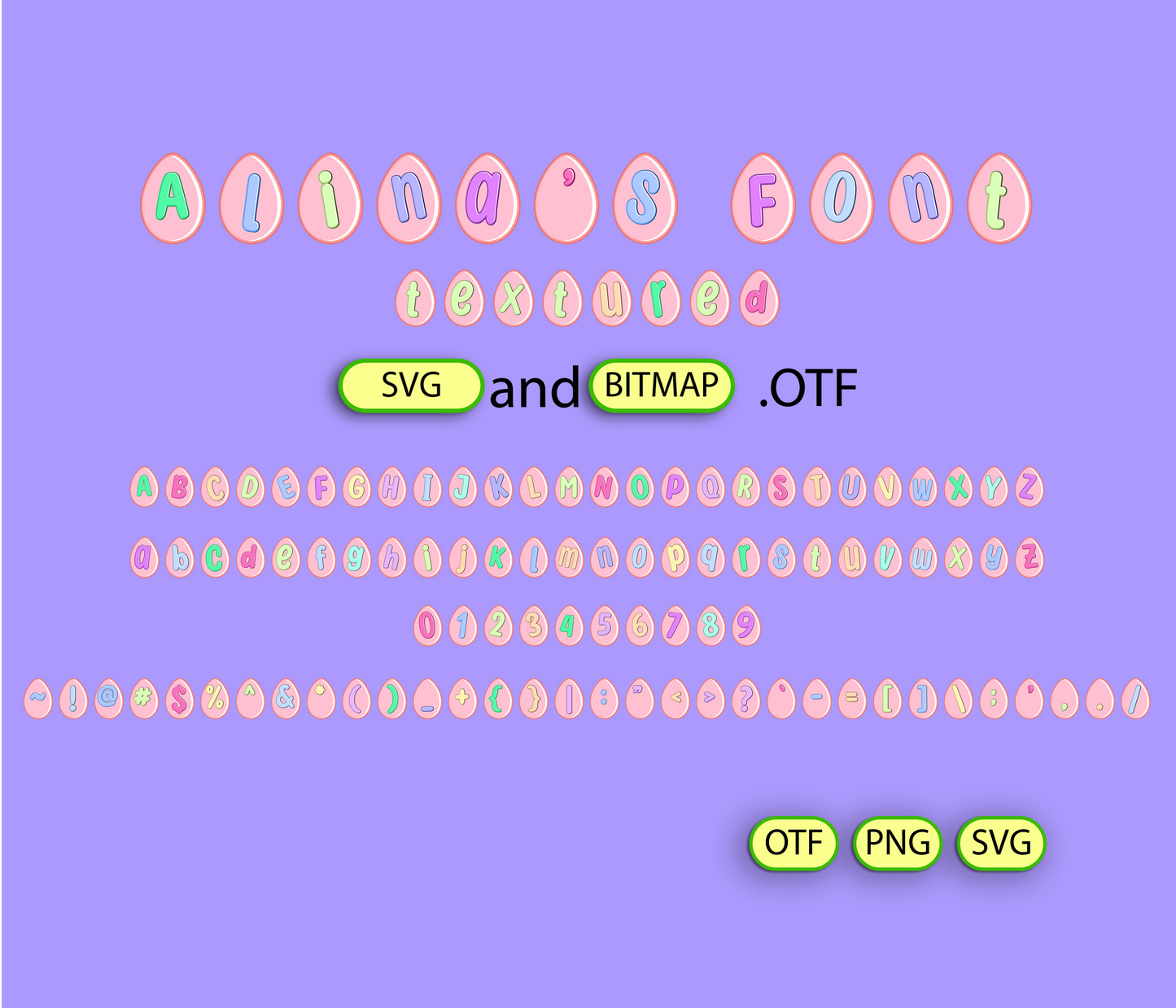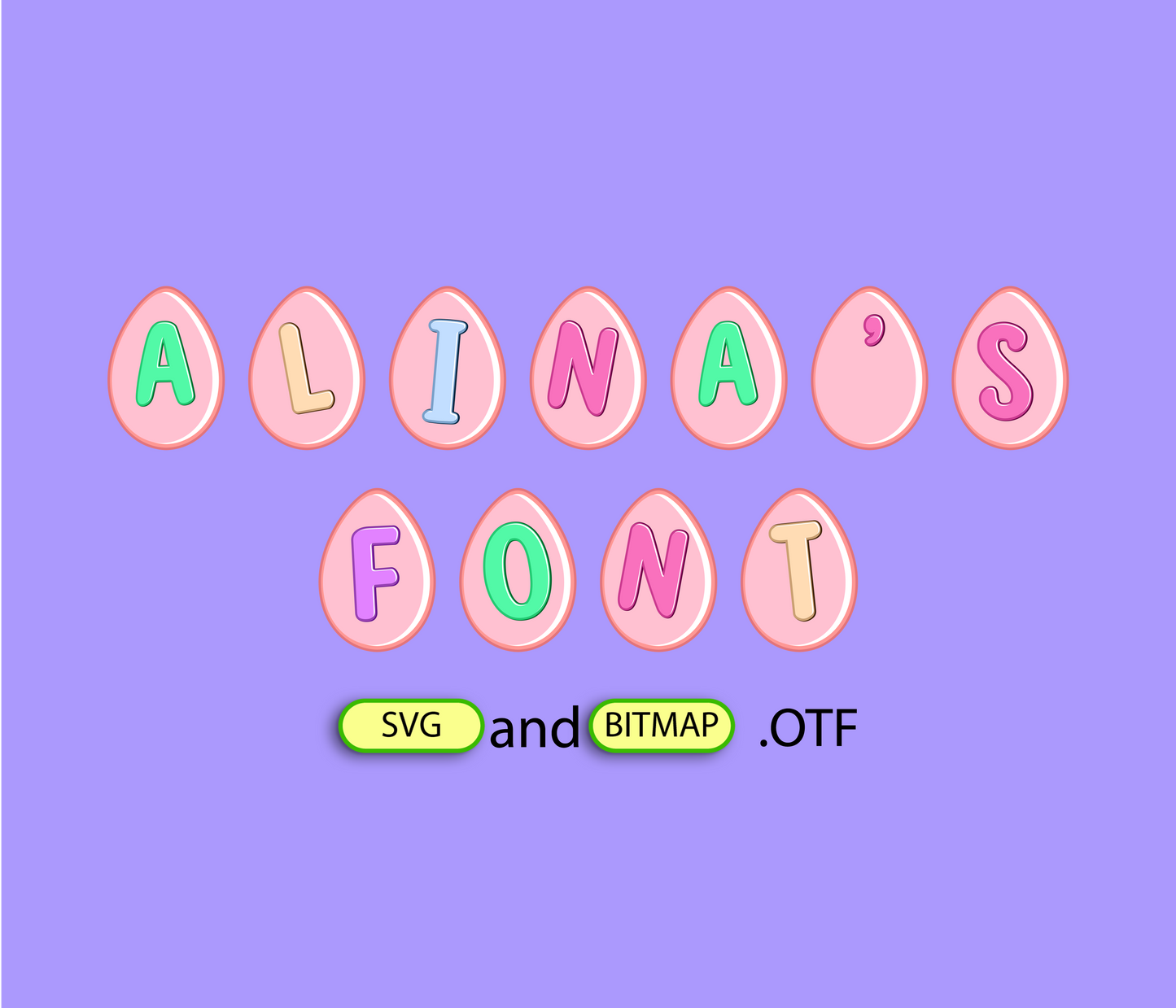
Easter Jubilee Banner Font Textured
Easter Jubilee Textured Font
Celebrate the essence of Easter, a time of renewal, joy, and heartfelt gatherings, with our specially crafted Easter font. Designed to embody the spirit of the season, this font weaves together the symbols of spring and the festive traditions that mark this time of year. From the serene moments of reflection to the playful searches for hidden eggs, the Easter font is your key to unlocking creative designs that resonate with the themes of hope, rejuvenation, and communal celebration.
Optimized for use in Canva the Easter font includes a FREE no-texture version, guaranteeing versatility in both digital and print mediums. This ensures that your Easter creations, regardless of where they're displayed or how they're printed, carry the essence of the season flawlessly. The comprehensive character set caters to a broad range of design needs, enabling intricate compositions or simple, elegant messages with equal ease.
Moreover, the Easter font is designed to be user-friendly, inviting designers of all skill levels to bring their vision to life. Whether you're a professional graphic designer or someone looking to add a personal touch to your Easter celebrations, this font package offers the tools you need to create compelling, seasonally inspired works of art.
Embrace the spirit of Easter in your projects and let your designs bloom with the freshness and warmth of spring. With its blend of traditional elegance and modern versatility, the Easter font is your go-to resource for capturing the joy, renewal, and togetherness that define this beloved time of year.